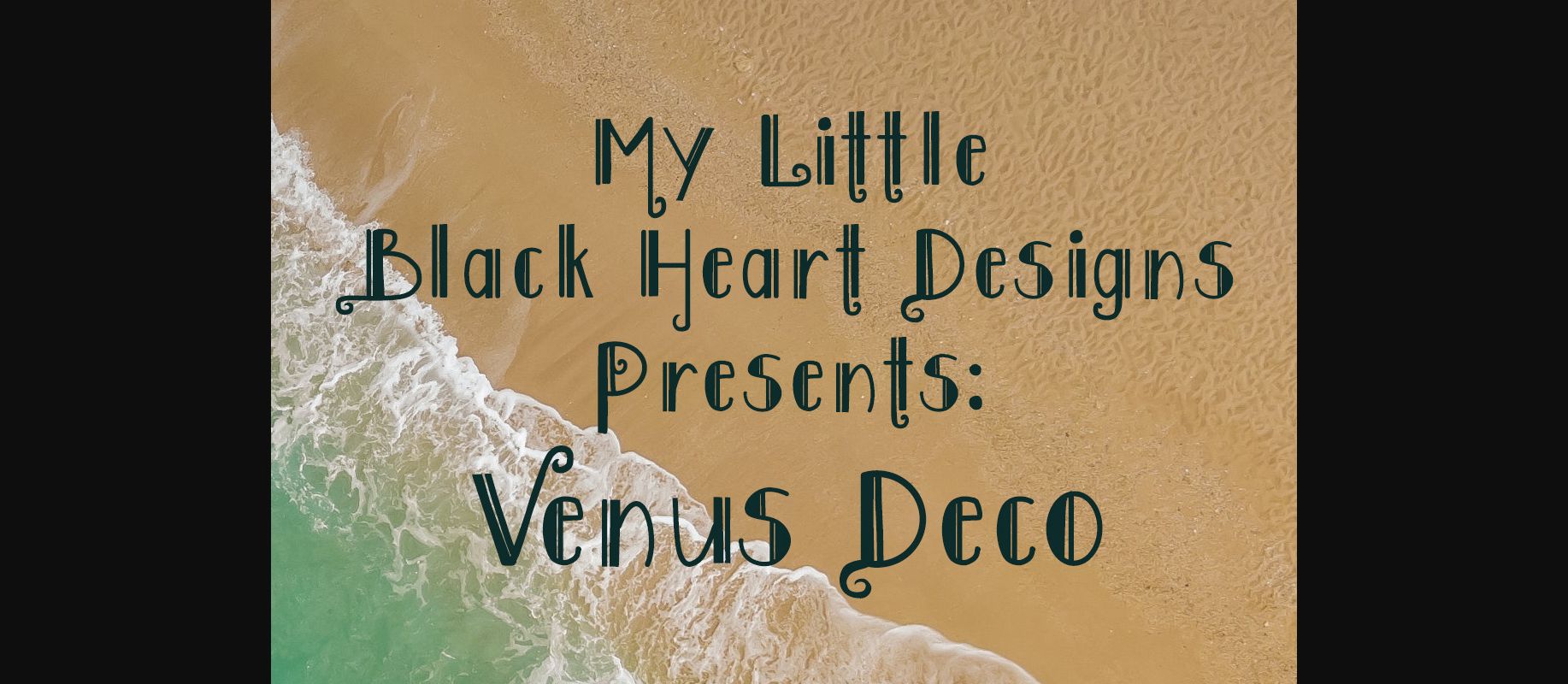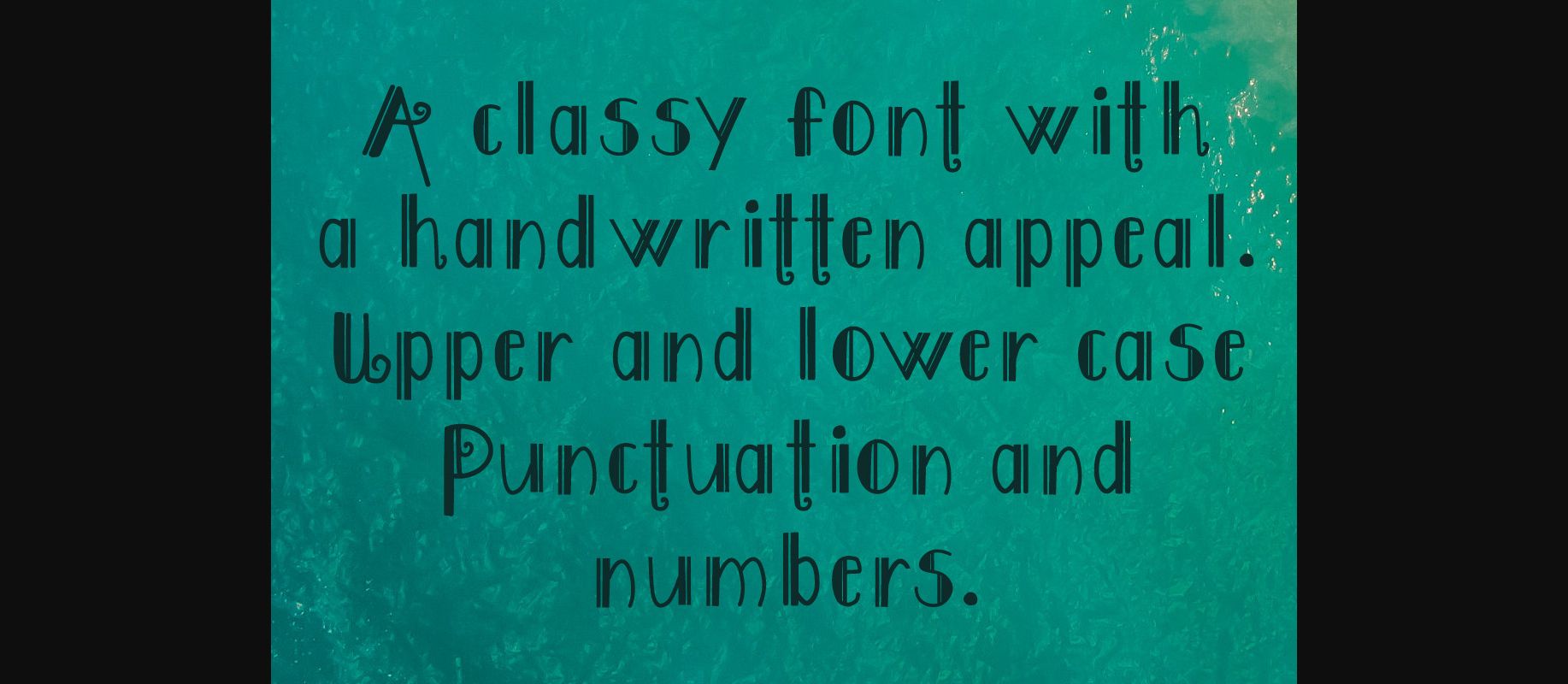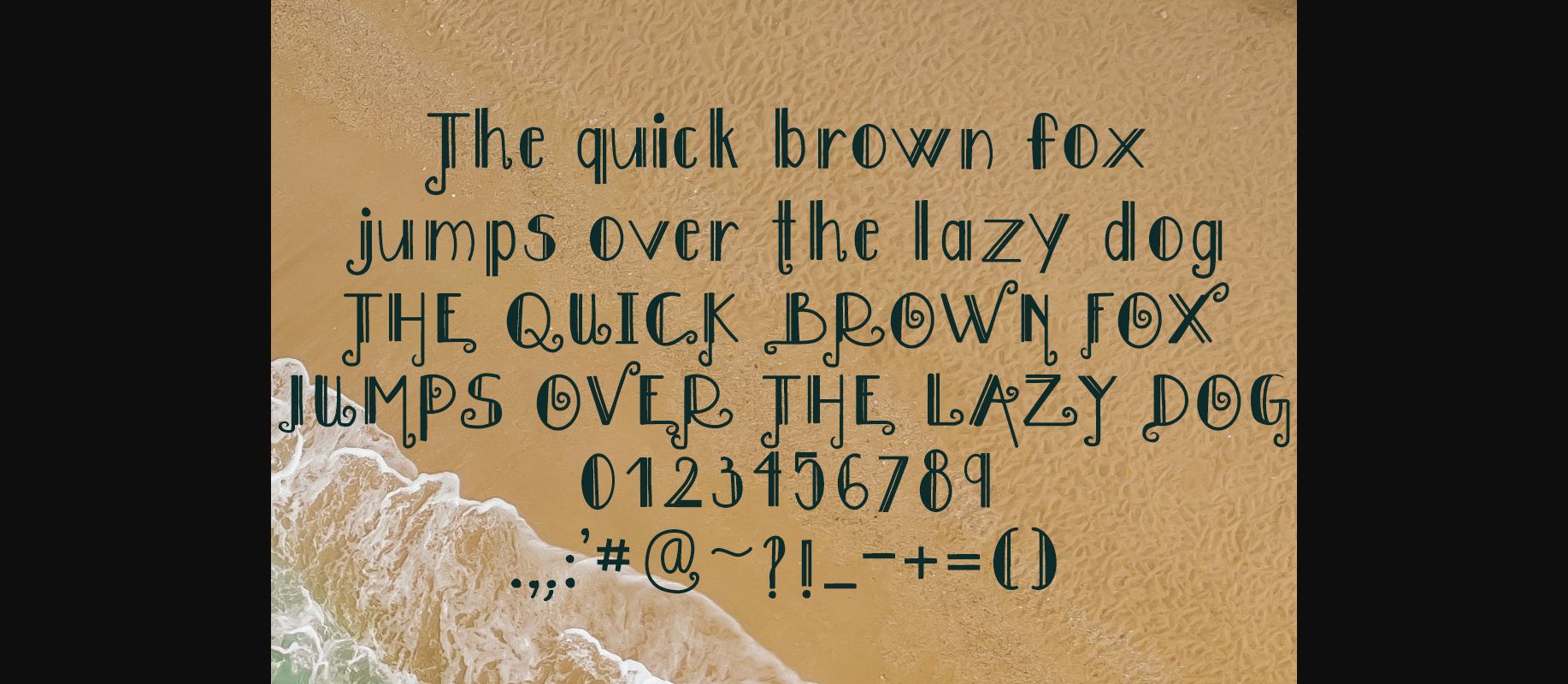
Venus Deco Font Font
About Venus Deco Font
Venus Deco is a classy font with a handwritten appeal. It’s a well-balanced font and will make a great addition to any font collection. It’s a fancy font with little curlycues here and there, and it will work for classy labels, greeting cards, or lettering art.